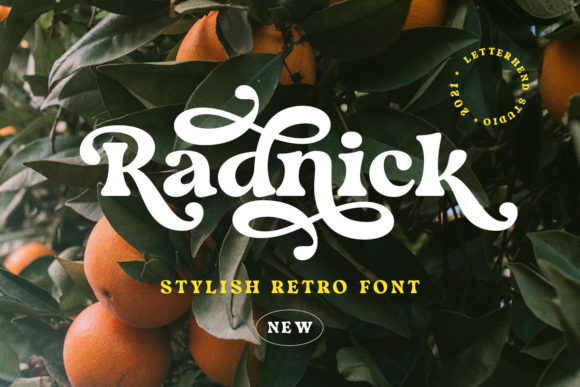
Introducing Radnick Font - A Serif Font Family Made for Captivating Instagram Captions and Eye-Catching Designs
In a world of digital storytelling, where every word holds power, meet Radnick Font - a captivating serif font family that transforms your Instagram captions into visual masterpieces. With its clean lines and a touch of quirkiness, Radnick is the secret weapon you need to elevate your social media game and leave a lasting impression on your audience.
Designed by the talented team at letterhend, Radnick is not just another font; it's an experience. Inspired by the beauty of classic serif typography and infused with a modern, playful twist, this font family is a versatile chameleon that adapts seamlessly to any design project, from logos and branding to social media posts and DIY creations.
Radnick's PUA encoding is the key to unlocking its full potential. With ease, you can access a treasure trove of glyphs and swashes, adding an extra layer of charm and personality to your designs. Experiment with different combinations to create captivating headlines, alluring quotes, or simply add a touch of elegance to your everyday content.